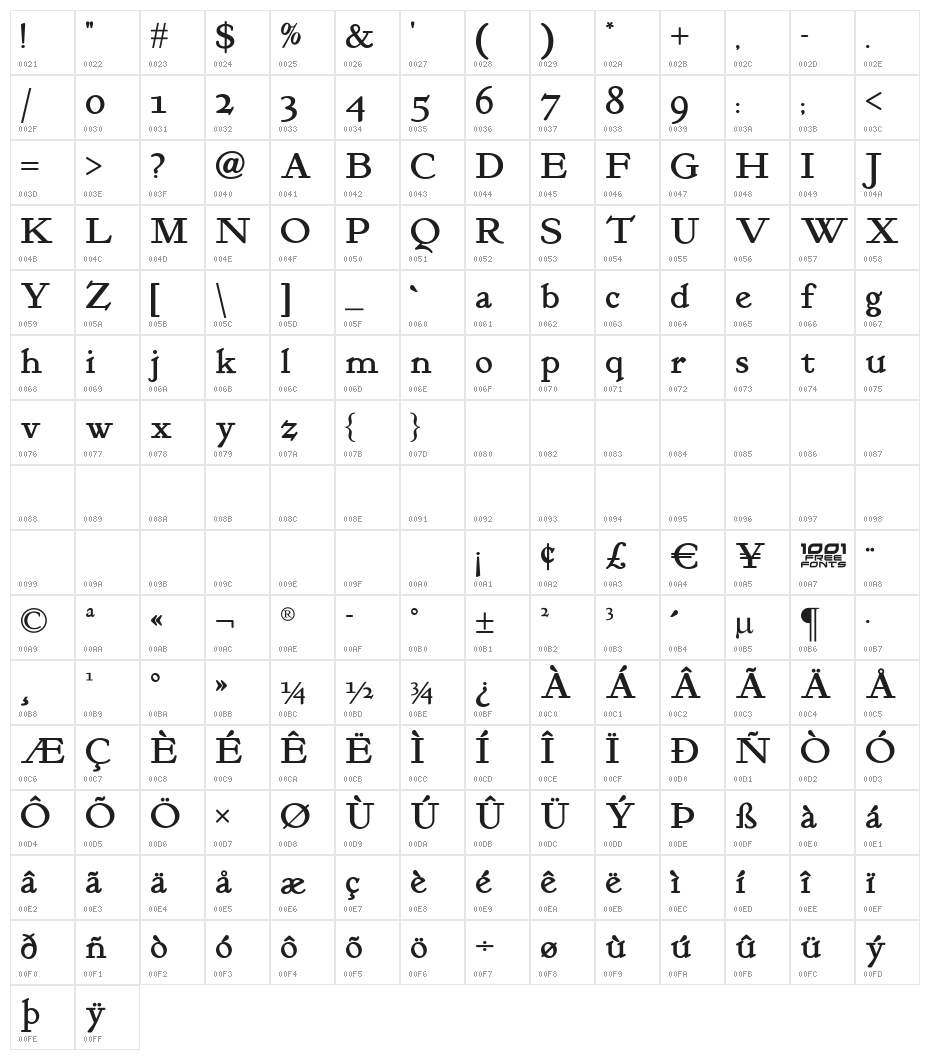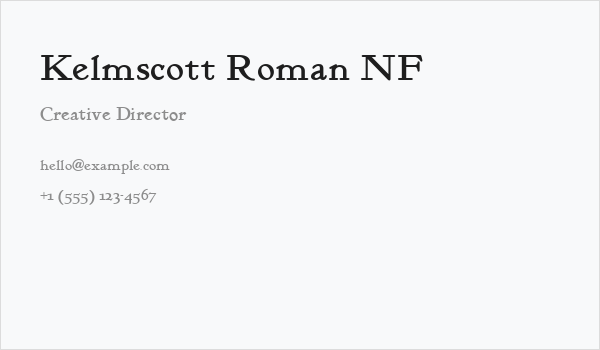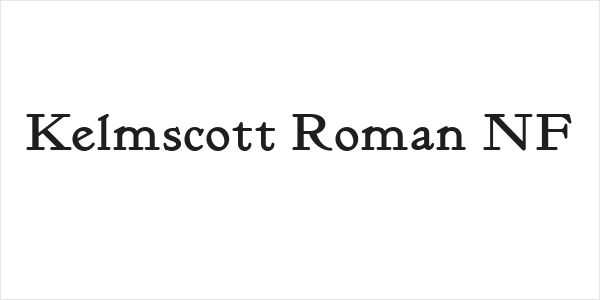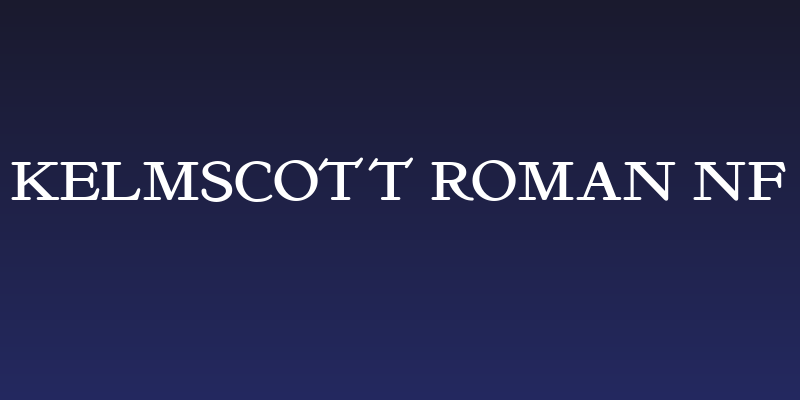
Kelmscott Roman NF Font
Kelmscott Roman NF Description
This font features a classic serif style with a distinct vintage flair. The uppercase letters are bold and prominent, with sharp serifs that give them a strong presence. The lowercase letters maintain a consistent style, with rounded forms and elegant curves that add a touch of sophistication. Numbers are clear and easy to read, with a uniform width that ensures balance across different uses. Special characters are designed with the same attention to detail, making them seamlessly integrate with the rest of the typeface. The overall appearance is reminiscent of traditional print, evoking a sense of history and craftsmanship.
| Proposed Projects | Ideal for book covers, historical documents, invitations, and branding that requires a classic touch. |